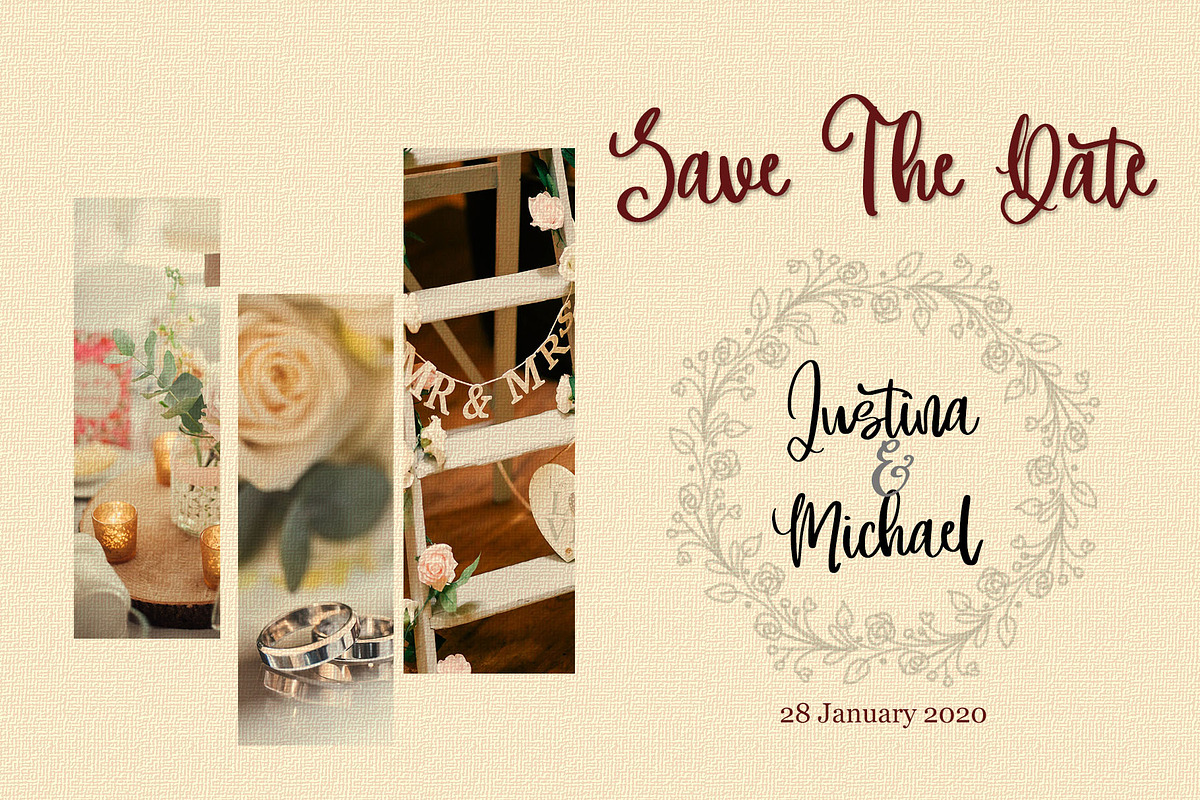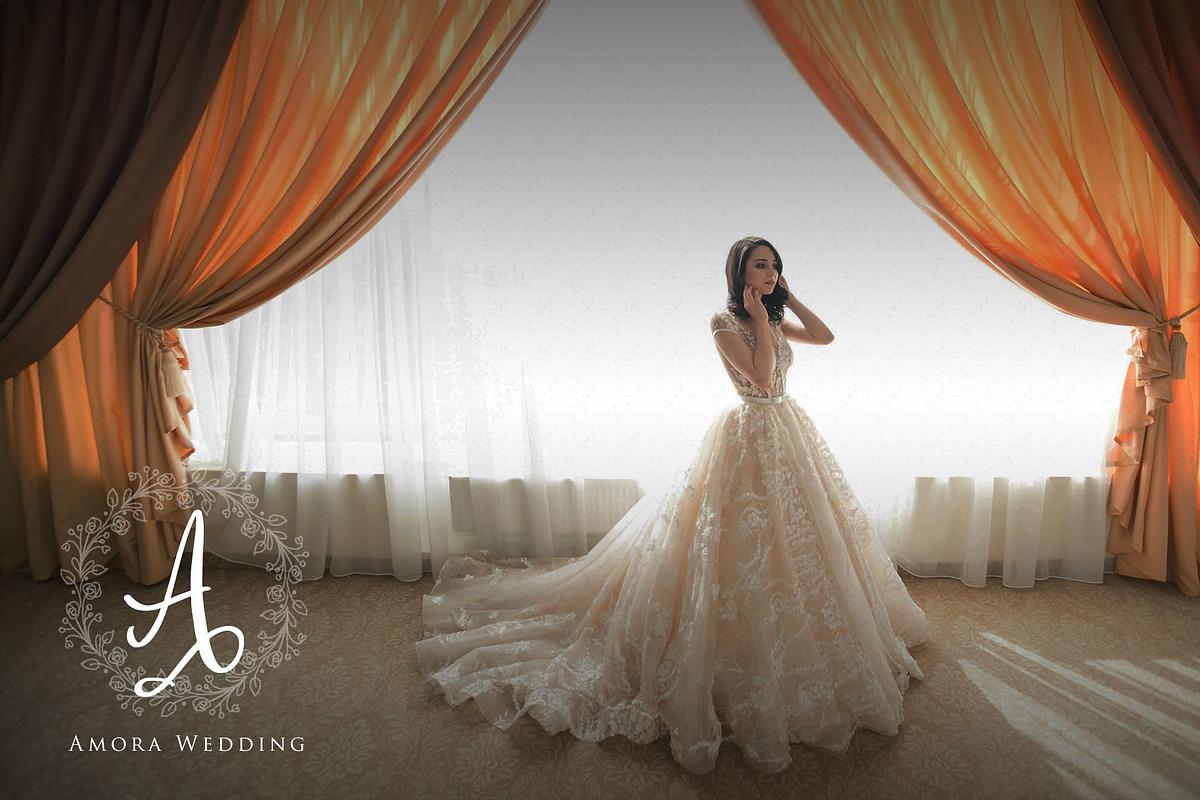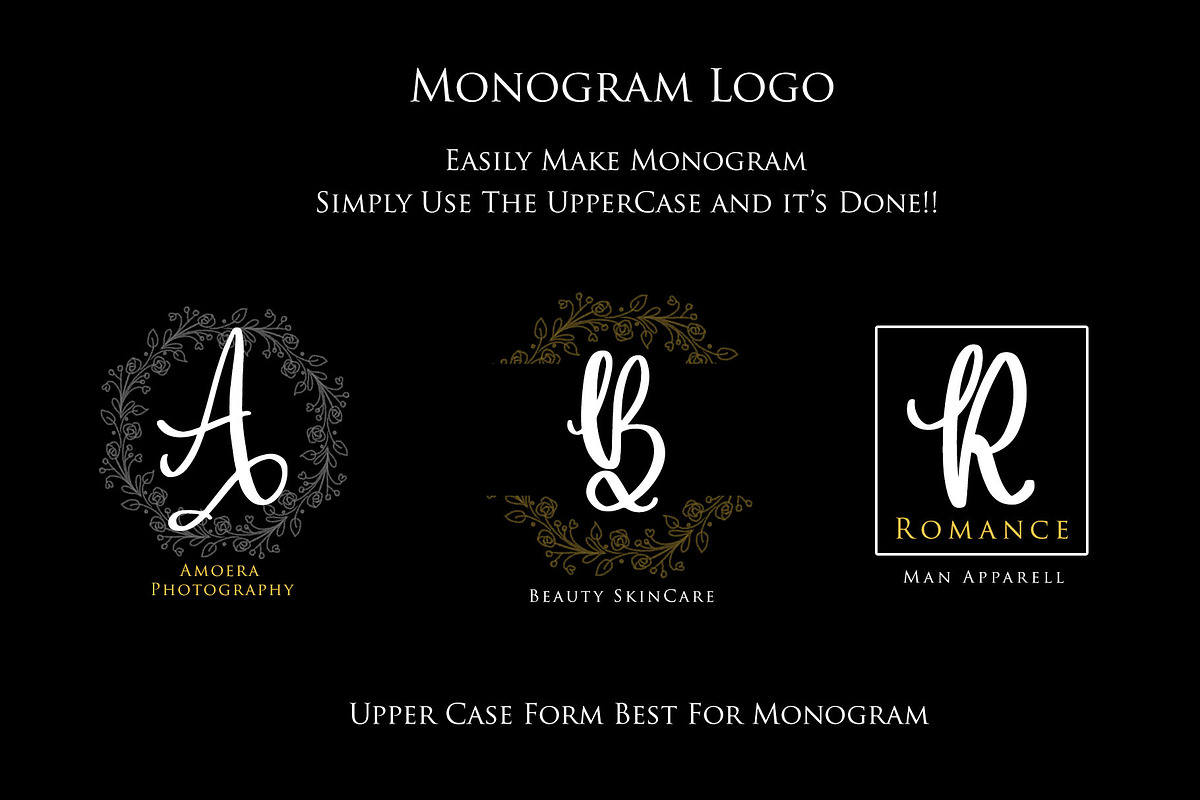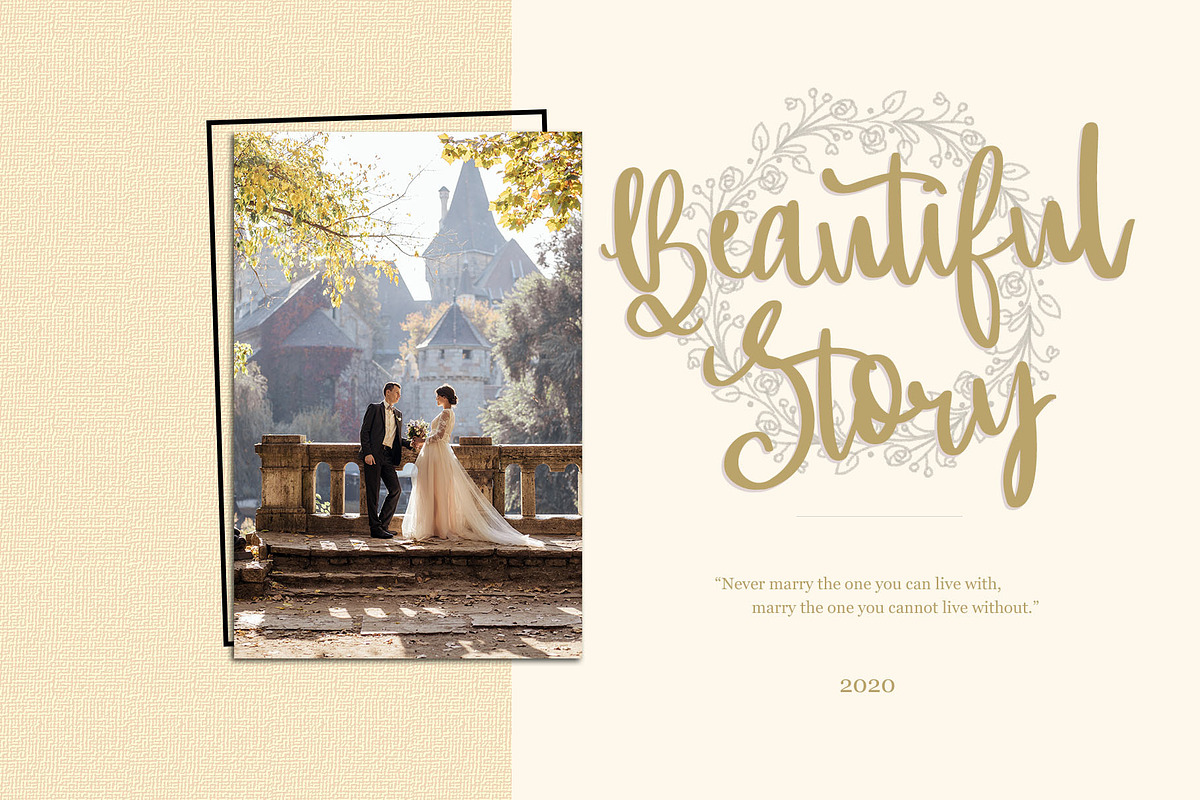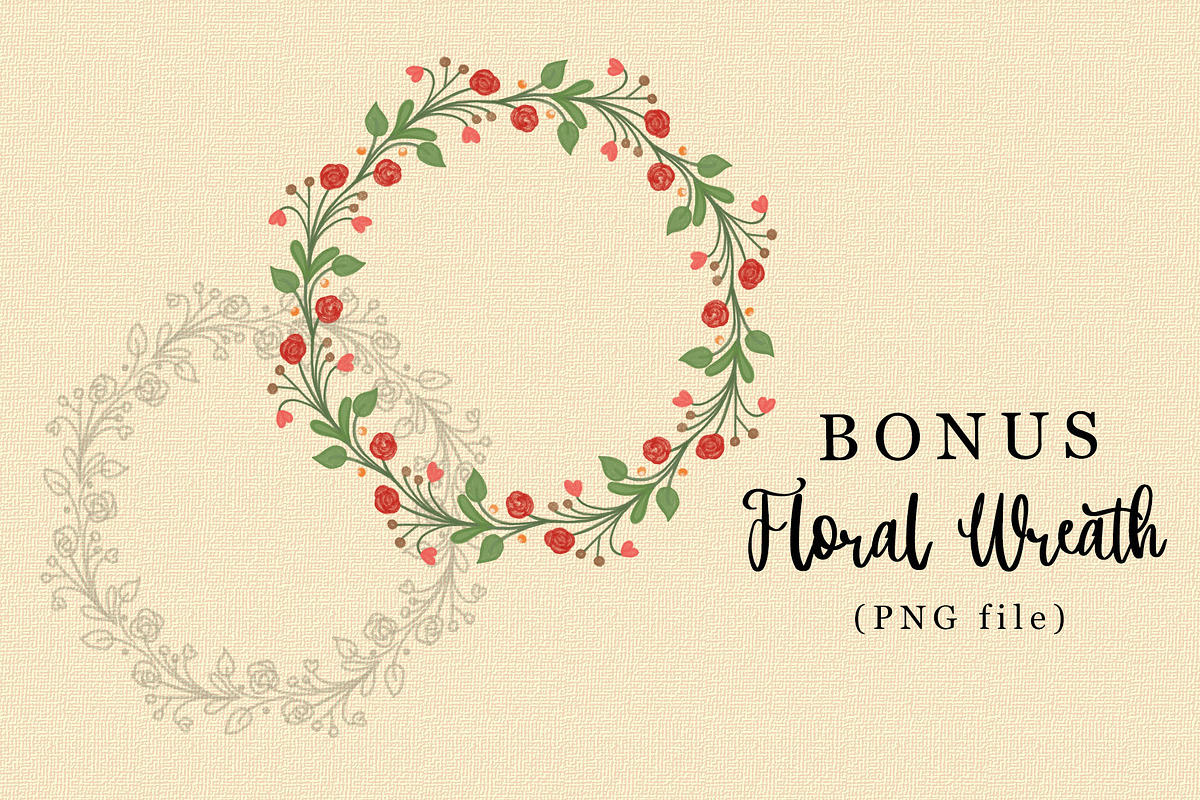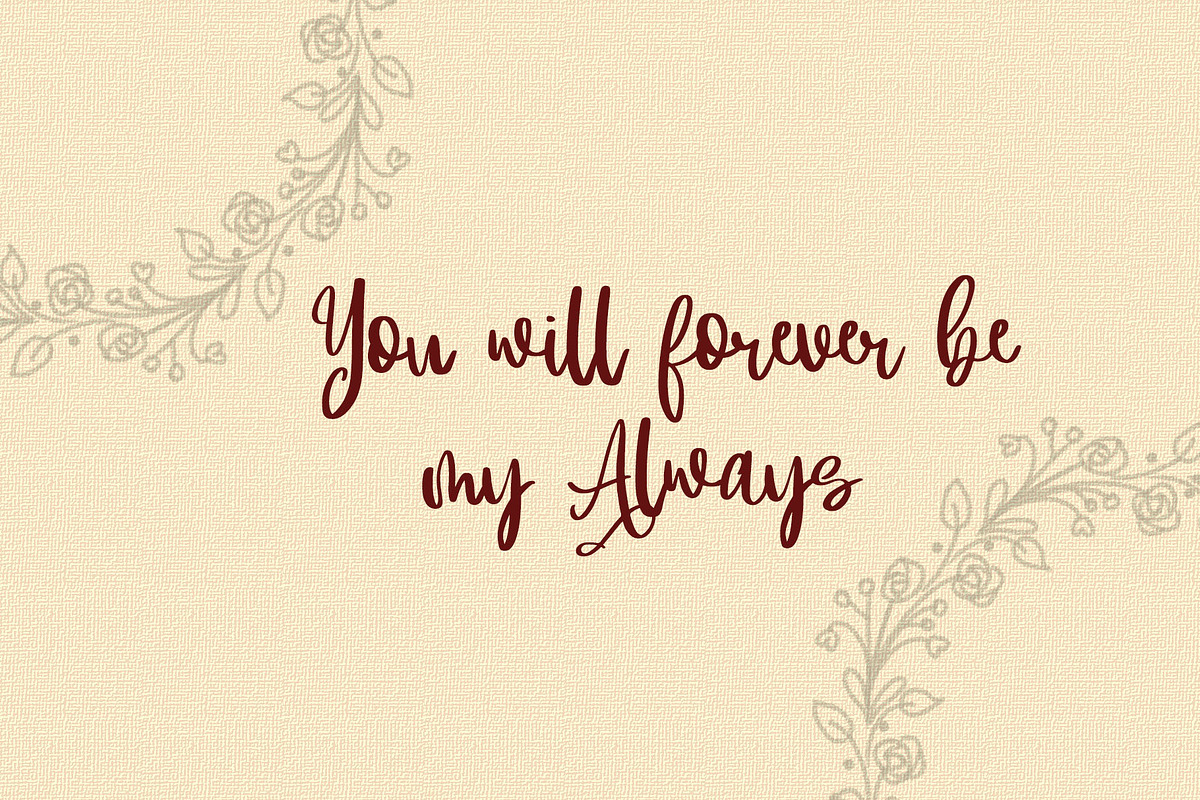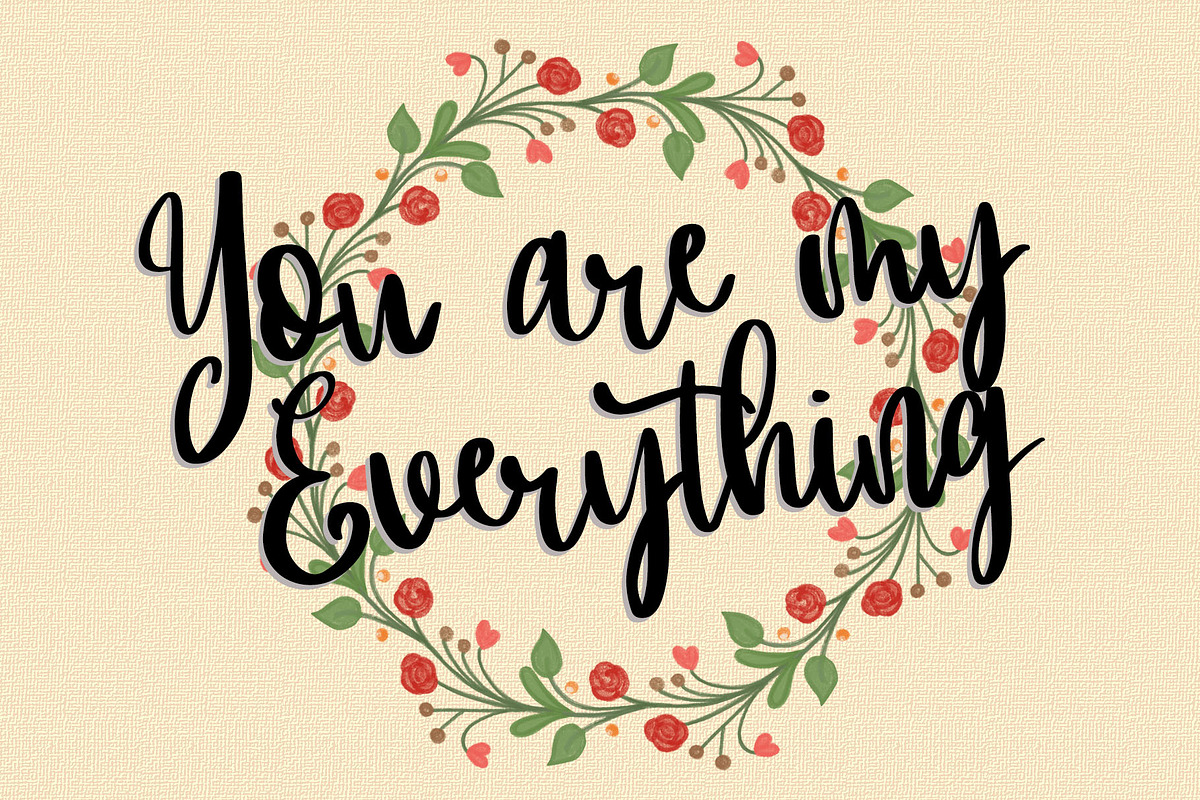
Romance d'Amour - Romantic Font
The romantic, cursive modern handwritten font. It has an expressive flow, with romantic flourish. Great for making quotes, headers, or even a monogram logo. Girly or elegant, it's up to your choice! Simple to use and no need any additional software or programs.